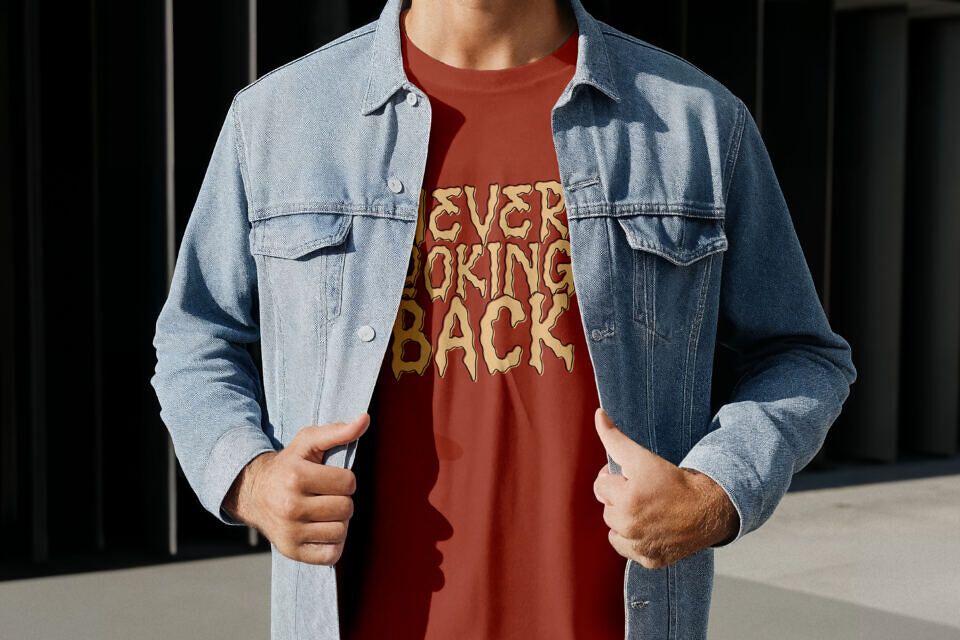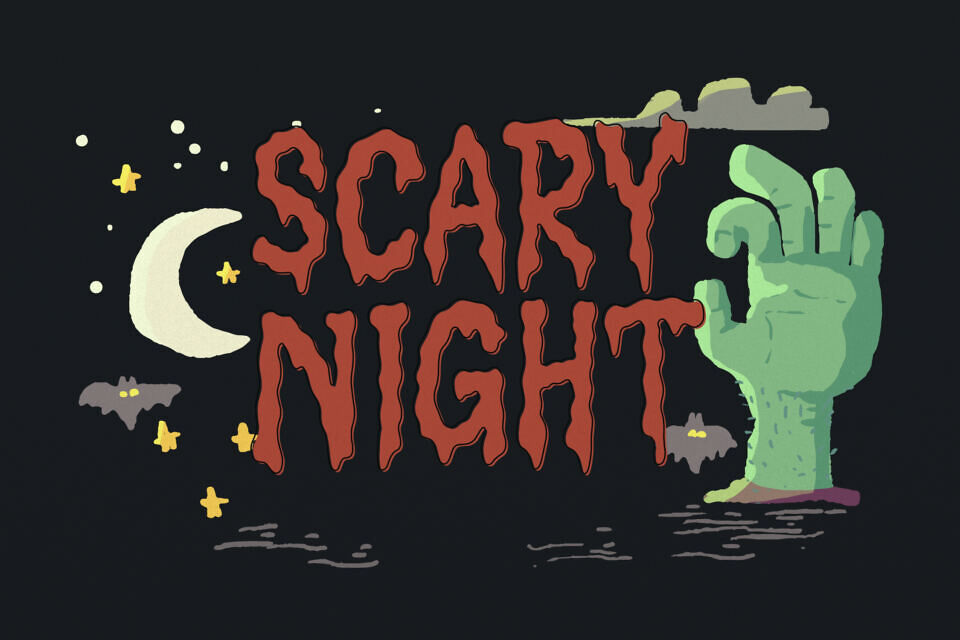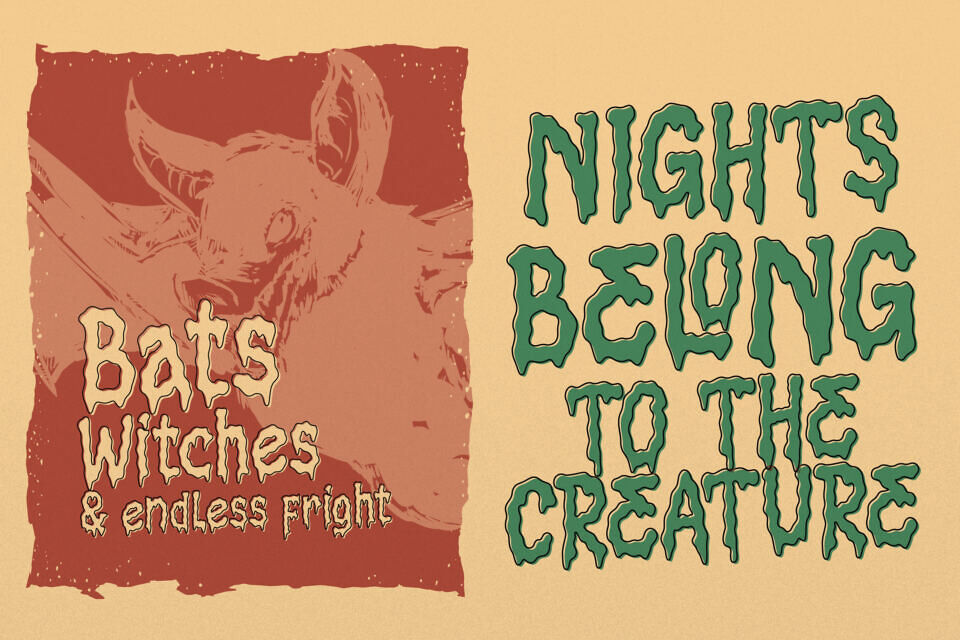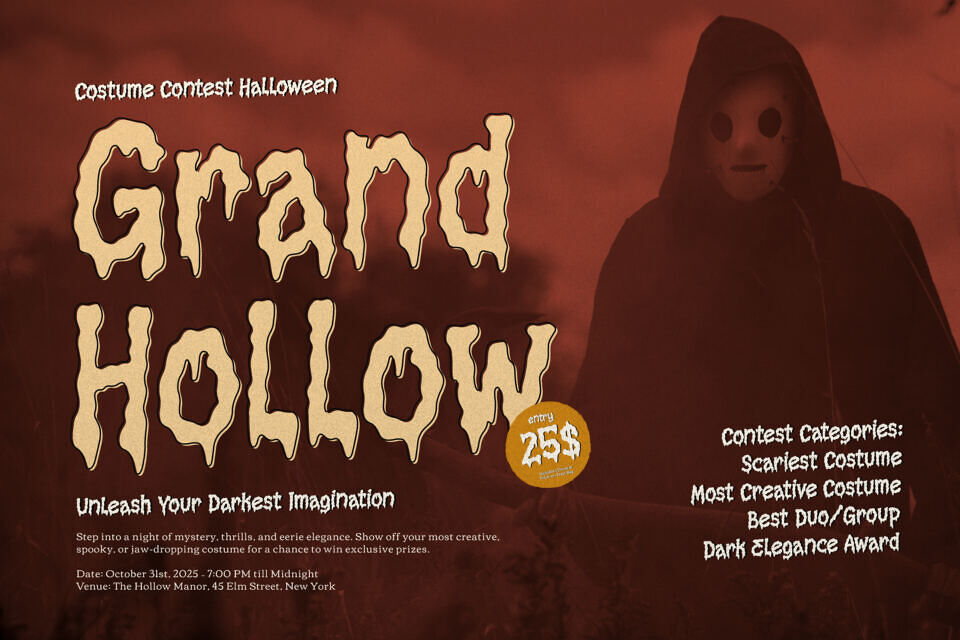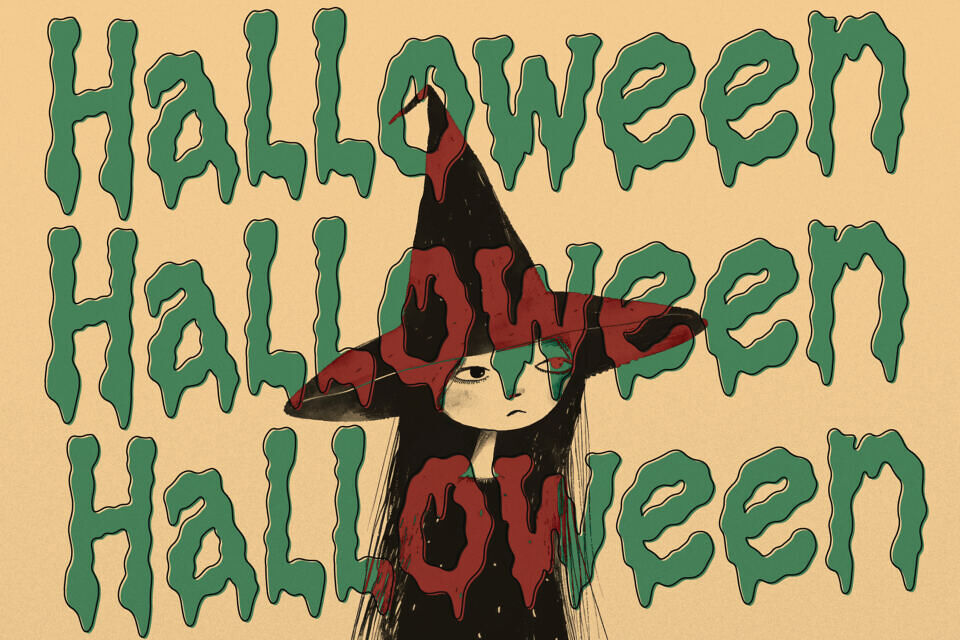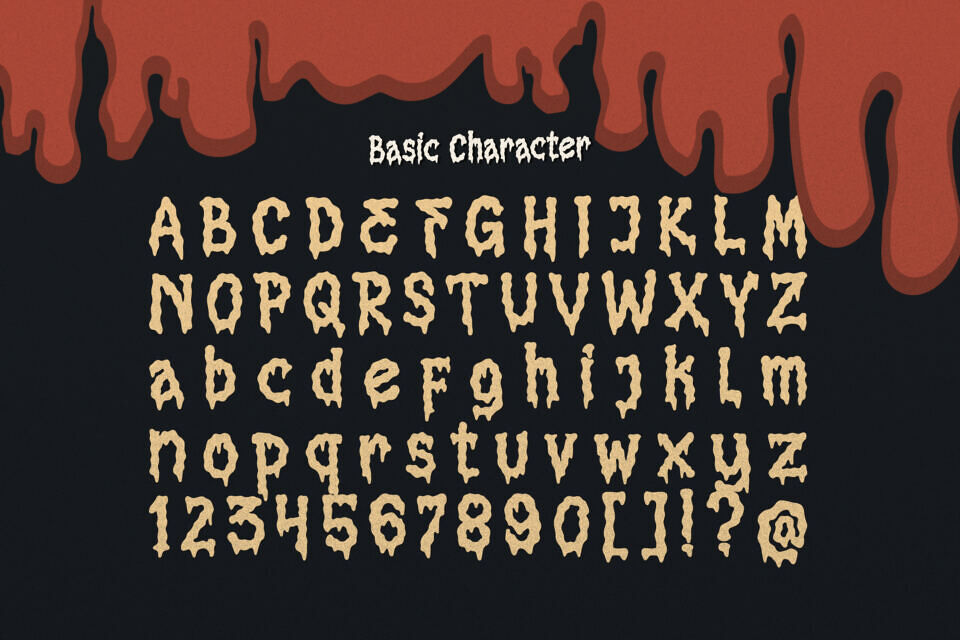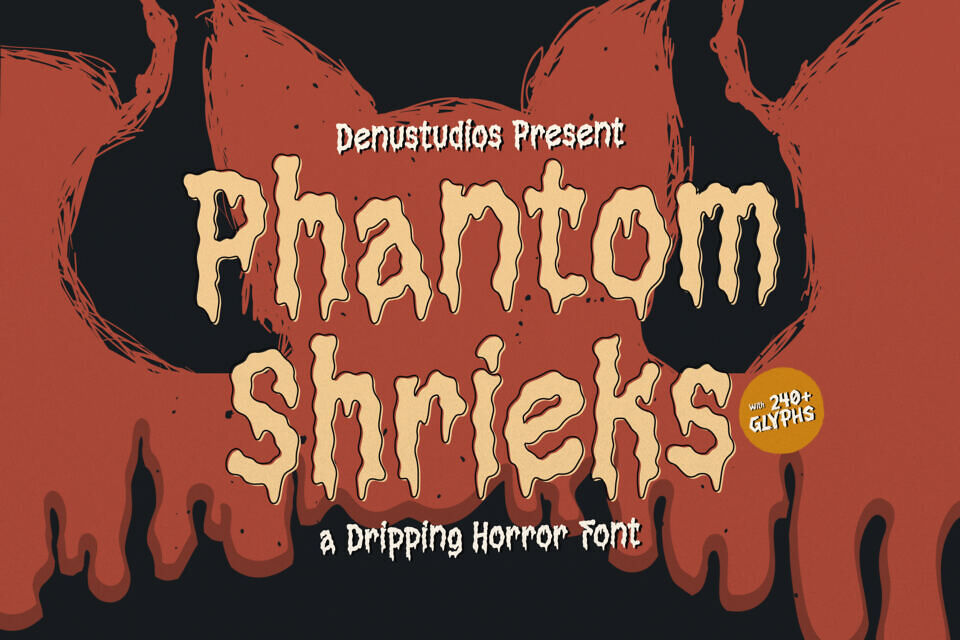
Phantom Shrieks Font
Phantom Shrieks is a striking dripping horror font crafted by Denu Studios, designed to infuse terror into visual projects. Its distinctive style boasts uneven, melting letterforms with a gritty texture and fluid drips, mimicking slime or blood for an unsettling, ghostly vibe.
Offering over 240 glyphs, it includes full uppercase and lowercase alphabets, numerals, and punctuation. Ideal for logos, branding, packaging, and halloween designs, this versatile typeface elevates horror aesthetics in merchandise and digital media.